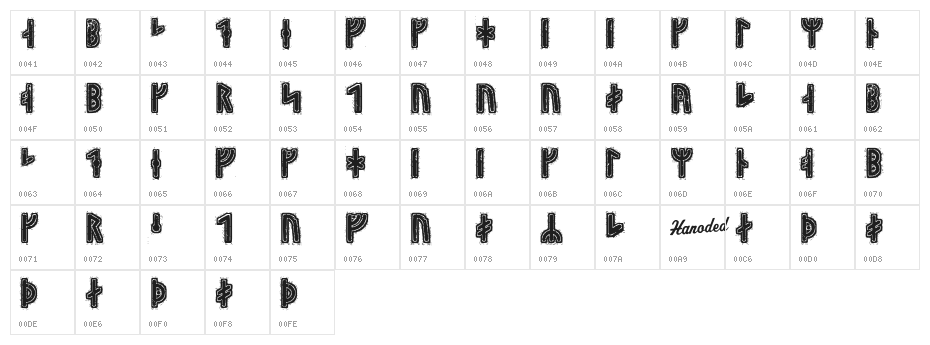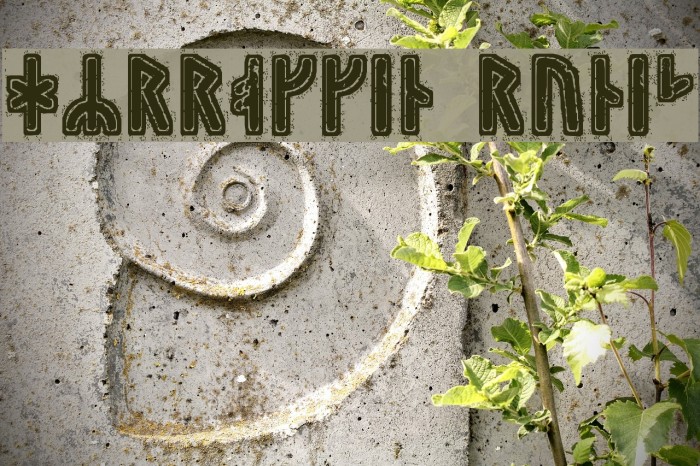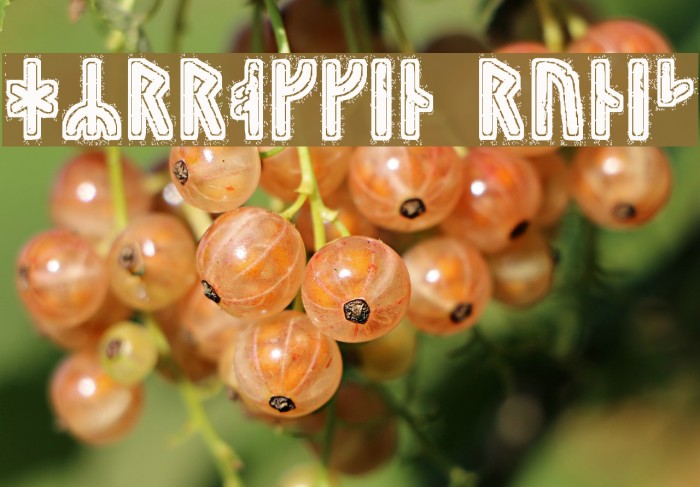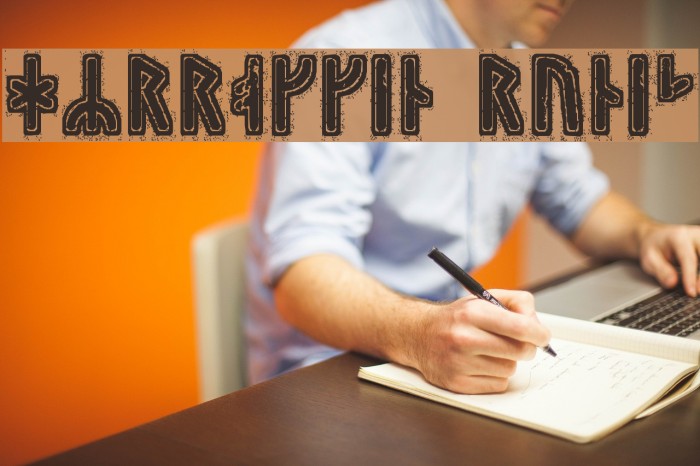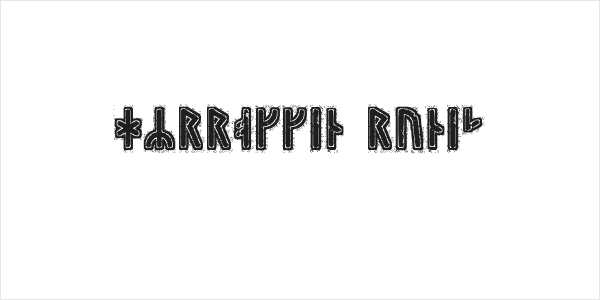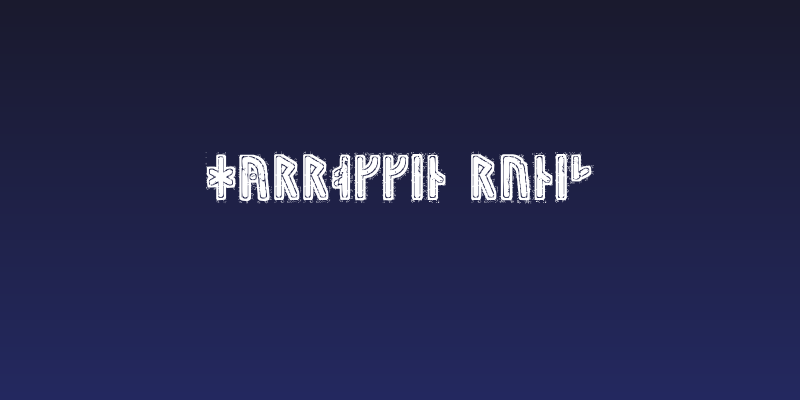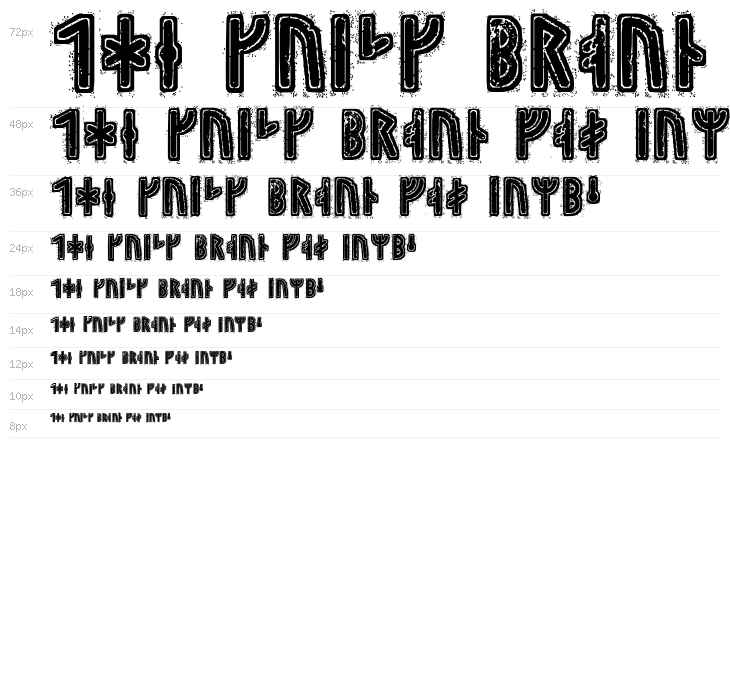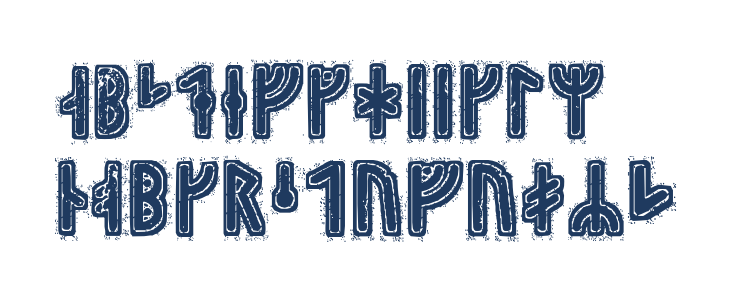
Hyrrokkin Runic Font
Hyrrokkin Runic Description
This font is inspired by ancient runic alphabets, featuring bold, angular lines and geometric shapes that evoke a sense of mystery and antiquity. The characters are designed with a thick outline, giving them a strong presence on the page. Each letter is distinct, with sharp edges and a uniform height, creating a cohesive and structured appearance. The font's unique style makes it ideal for projects that require a historical or mystical aesthetic. Its boldness ensures readability while maintaining an artistic flair, making it suitable for both digital and print media.
| Proposed Projects | Ideal for fantasy book covers, historical documentaries, themed event posters, and video game titles. |